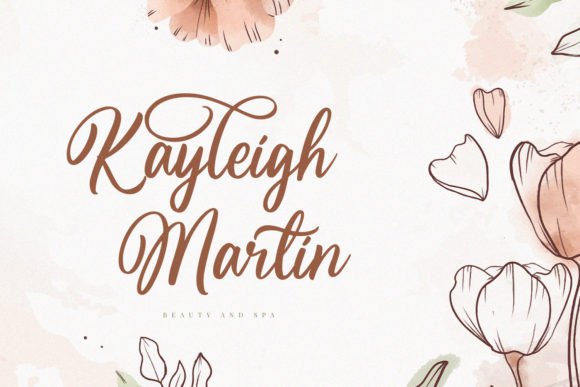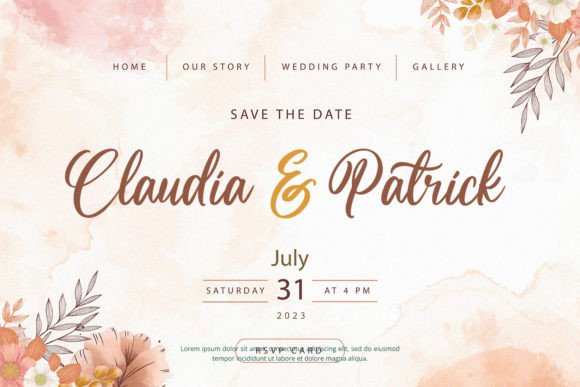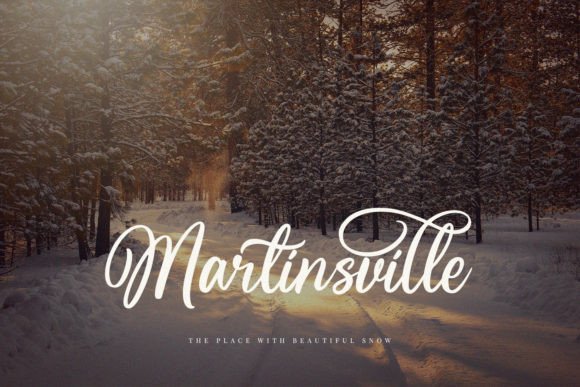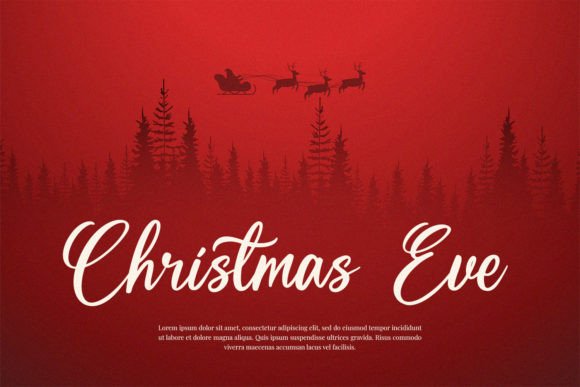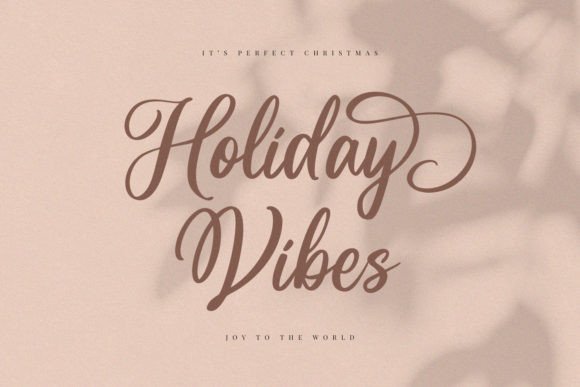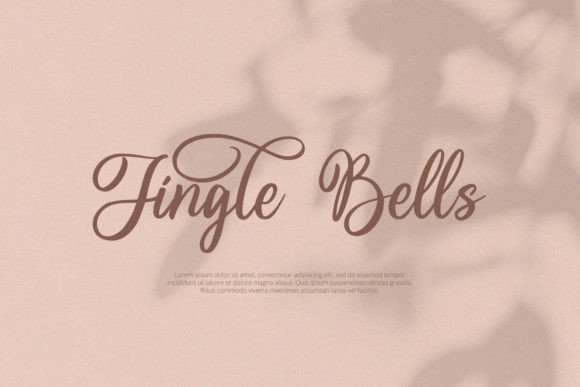
Cranberry Font: Elevate Your Designs with Elegance and Sophistication
In the world of typography, fonts play a crucial role in conveying the tone and personality of a brand or design. For designers and crafters looking to add a touch of elegance and uniqueness to their projects, Cranberry Font is an excellent choice. This modern script font is designed to make a statement, and its versatility makes it perfect for a wide range of applications.
What is Cranberry Font?
Cranberry Font is a modern script font that boasts an elegant and unique style. Its flowing lines and curves are carefully crafted to add a touch of sophistication to any design. Whether you’re working on a branding project, logo design, or a creative craft, Cranberry Font is sure to impress.
Key Features of Cranberry Font
- Elegant and Unique Style: Cranberry Font features a distinctive and refined design that sets it apart from other fonts.
- Modern Script Font: Its modern script style makes it perfect for designs that require a touch of sophistication and elegance.
- Highly Versatile: Cranberry Font can be used for a wide range of projects, from branding and logo designs to letterings, logotypes, and more.
Cranberry Font is an excellent choice for designers and crafters looking to elevate their projects. Its elegant and unique style makes it perfect for:
- Branding: Create a lasting impression with a font that exudes elegance and sophistication.
- Logo Designs: Make your logo stand out with a unique and memorable font.
- Letterings and Logotypes: Add a touch of personality to your letterings and logotypes with Cranberry Font.
- Clothing and Apparel: Use Cranberry Font to create stunning designs for clothing, t-shirts, and other apparel.
- Posters and Magazines: Add a touch of elegance to your posters and magazines with this beautiful font.
- Packaging and Shopping Bags: Make your packaging and shopping bags stand out with a unique and eye-catching font.
- Book Covers and Photography: Use Cranberry Font to create stunning book covers and add a touch of sophistication to your photography projects.
- Special Events: Make your special events, such as weddings and parties, unforgettable with a beautiful and elegant font.
Why Choose Cranberry Font?
With so many fonts available, why choose Cranberry Font? Here are just a few reasons:
- Unique and Memorable: Cranberry Font is designed to make a statement and leave a lasting impression.
- Highly Versatile: This font can be used for a wide range of projects, making it a great addition to any designer’s toolkit.
- Elegant and Sophisticated: Cranberry Font exudes elegance and sophistication, making it perfect for designs that require a touch of refinement.
In conclusion, Cranberry Font is a modern script font that is sure to elevate your designs with its elegant and unique style. Its versatility and range of applications make it a great choice for designers and crafters looking to add a touch of sophistication to their projects. Whether you’re working on a branding project, logo design, or a creative craft, Cranberry Font is an excellent choice.